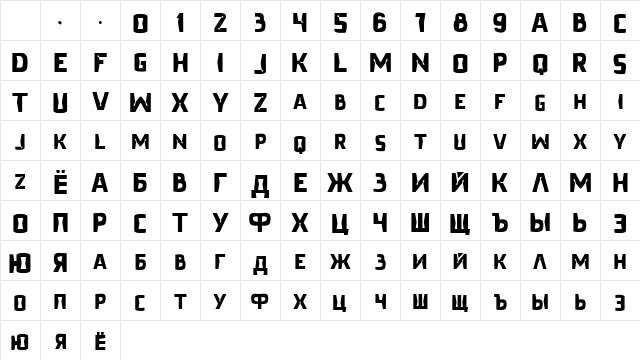
Pacifica is a composed and adaptable typeface that performs quietly and consistently across a wide range of design contexts.
Pro Tip: Use Pacifica in both headline and body roles to test its range before committing to a single application.